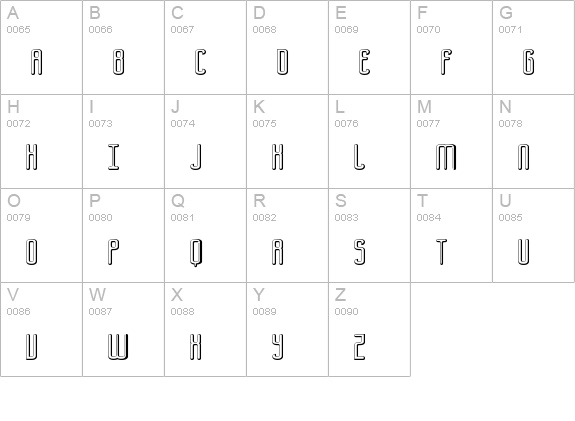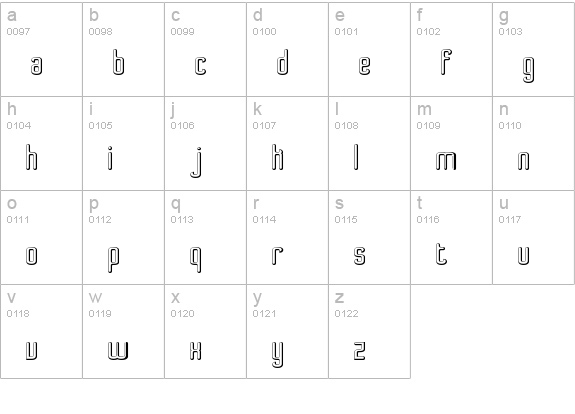
Bend 2 Squares OL2 BRK Font Details
Bend 2 Squares OL2 BRK font is a unique and stylish typeface that combines modern design with a touch of creativity. Its bold and angular letters give off a strong and dynamic feel, making it perfect for eye-catching designs and branding projects. This font is freely available to download at FontsMarket.com, ensuring that designers and creatives have easy access to this versatile typeface for their projects. With its clean lines and geometric shapes, Bend 2 Squares OL2 BRK font is sure to make a bold statement and elevate any design it is used in.